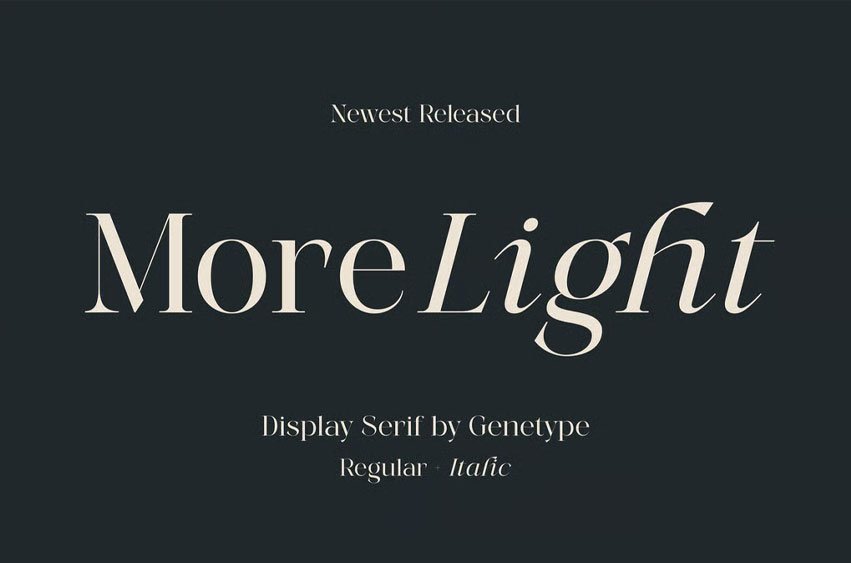
More Light Font is an elegant display serif font designed with a perfect balance between modern sophistication and timeless grace. Its refined letterforms feature delicate contrast, subtle curves, and smooth transitions that exude professionalism and luxury. With both Regular and Italic styles, MoreLight offers flexibility for building visual harmony across editorial layouts, branding identities, packaging, and high-end product designs. This typeface captures the essence of refined beauty, making it ideal for perfume packaging, fashion branding, book covers, business cards, and minimal logo design.
Every curve is thoughtfully crafted to evoke a calm sense of confidence and clarity, while maintaining readability and class in every application. MoreLight includes uppercase and lowercase letters, numbers, punctuation, multilingual support, and comes in OTF, TTF, and WOFF formats for versatile use across print and digital projects. Whether used for elegant titles or clean body text, MoreLight elevates your design with effortless charm and sophistication.
More Light Font Preview